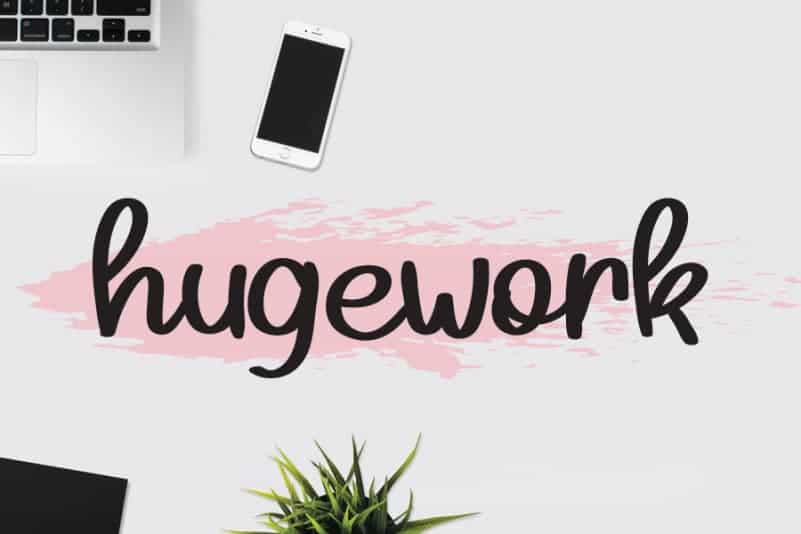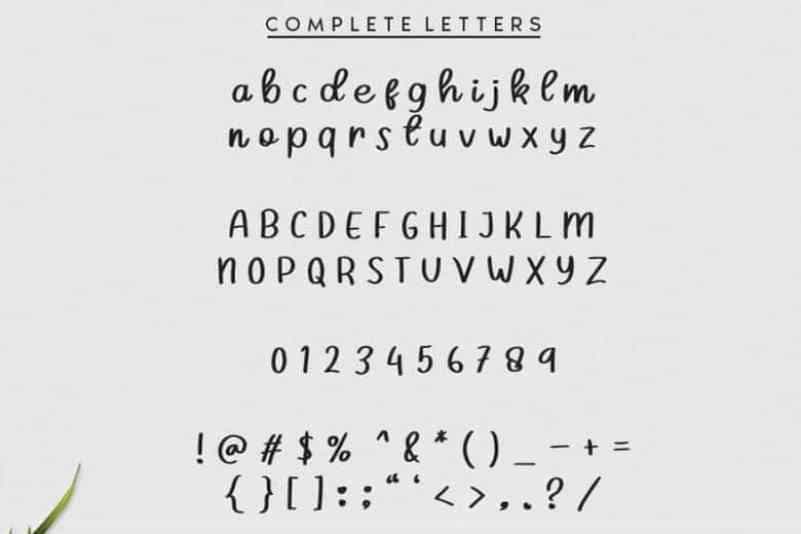
Hugework is a lovely and affluent handwritten font. Its organic and distinctive style makes it perfectly suited to an array of styles. The only limitation you have is the imagination!